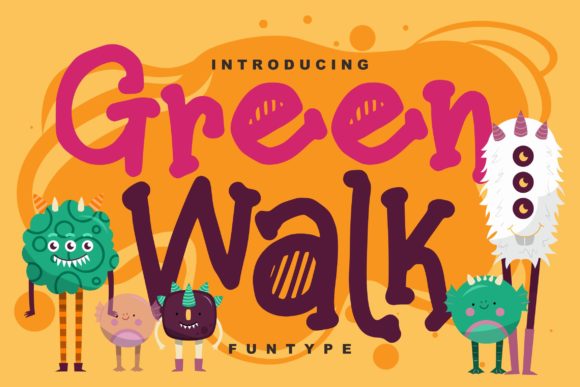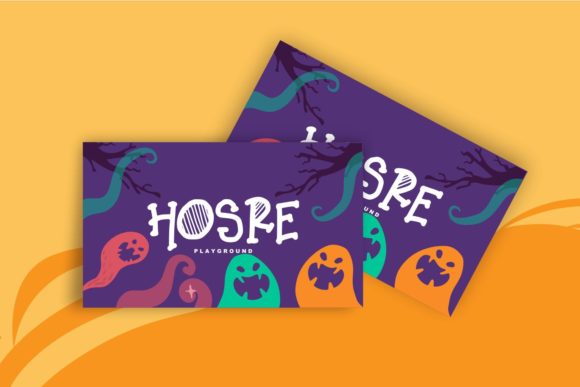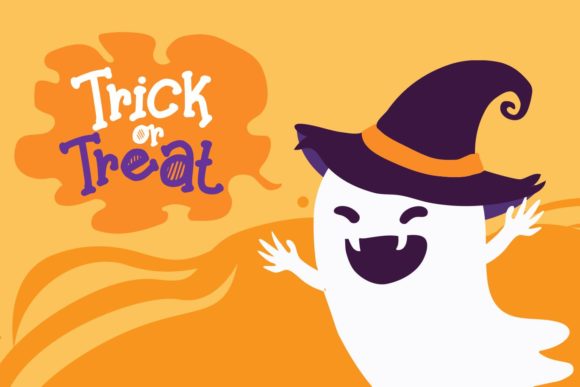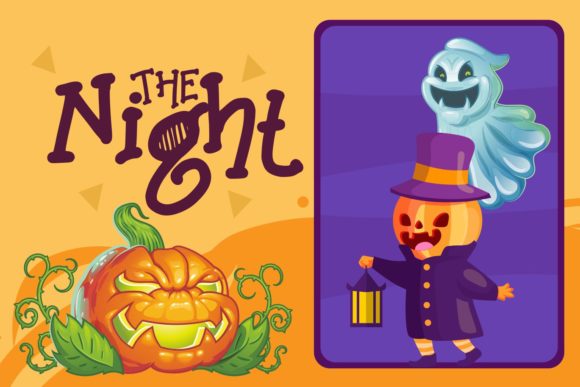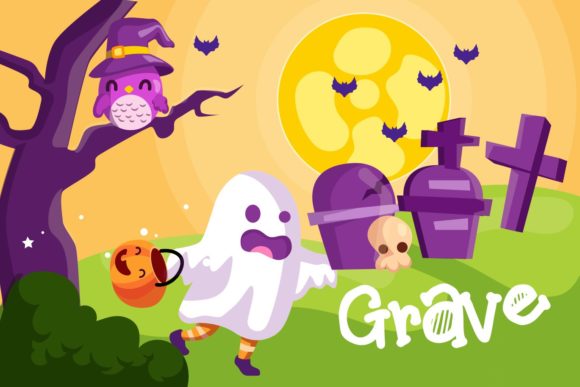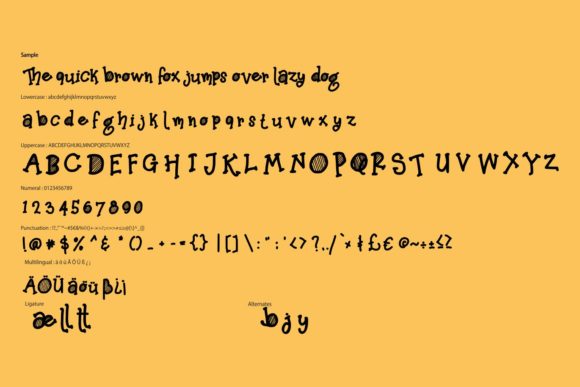
HomeScript FontsGreen Walk Font Script Fonts Green Walk Font FacebookXPinterestWhatsApp Green Walk Font Poster 2 Green Walk Font Poster 3 Green Walk Font Poster 4 Green Walk Font Poster 5 Green Walk Font Poster 6 About Green Walk Font Green Walk is a fun and playful script with a dynamic style. DOWNLOAD NOW People also explored Swan Font Ricotta Font Aminah Font Christmas Sublimation Font Raccosetta Font Anderik Font Unquestionify Font Canelope Font Dresmoun Font 454 0 TagsGreen Walk Font Previous articleSilent FontNext articleQuirtty Font LEAVE A REPLY Cancel reply Comment: Please enter your comment! Name:* Please enter your name here Email:* You have entered an incorrect email address! Please enter your email address here Website: Save my name, email, and website in this browser for the next time I comment. Personal Use Free The Pottery Personal Use Free Read more about this font Cute Messy Personal Use Free Read more about this font Septhine Personal Use Free Read more about this font Bridgetown Font Personal Use Free Read more about this font BLOG Exploring Font Trends Shaping Communication in the Digital Era Fonts, like all design elements, are subject to trends. They play a crucial role in communicating a brand's personality,... How to Install and Use Fonts on Windows, macOS, and Web Projects Elegant Wedding Invitation Fonts – Handwritten & Script Fonts Best Fonts for YouTube Videos: Make Your Thumbnails Stand Out